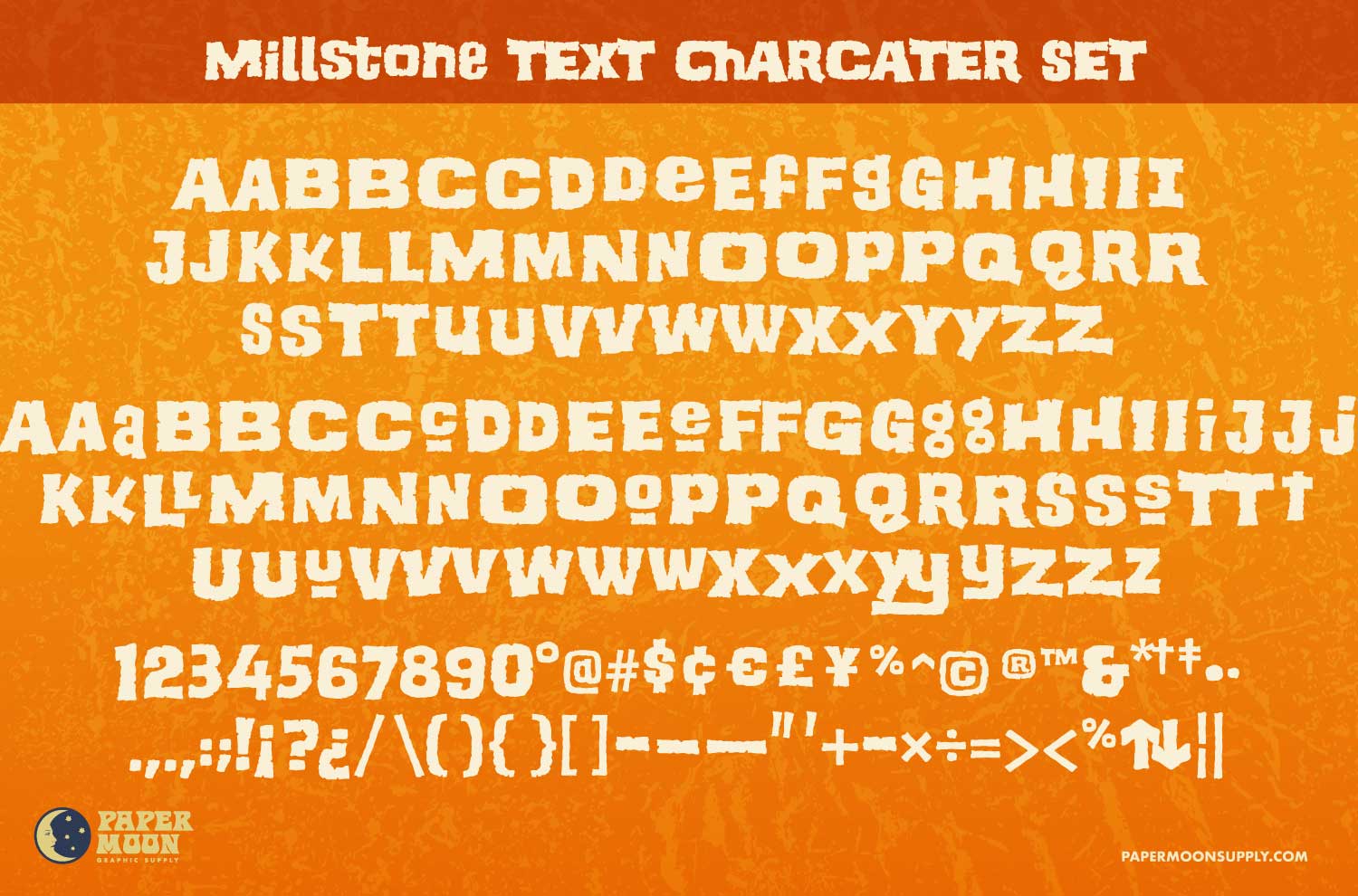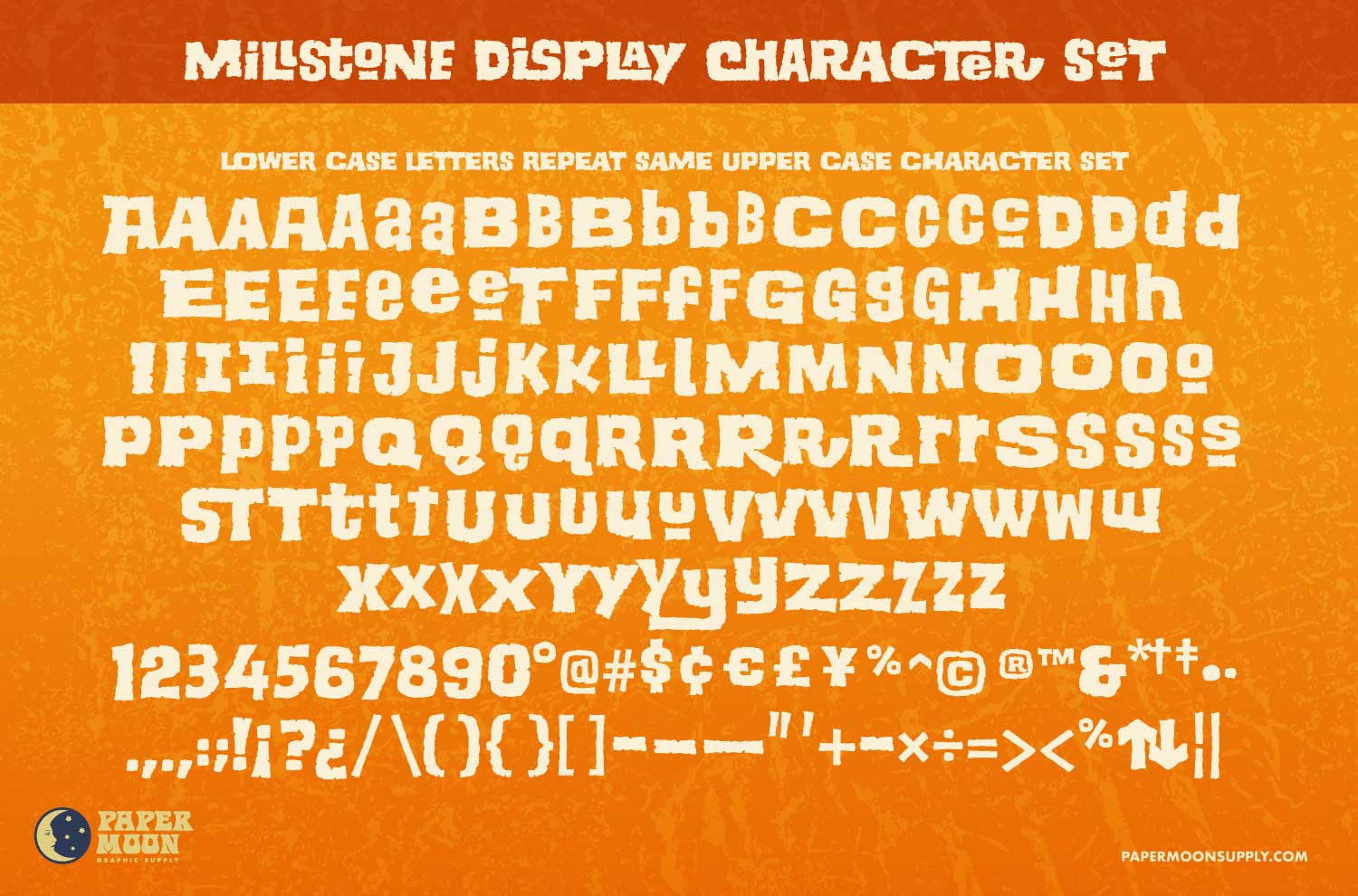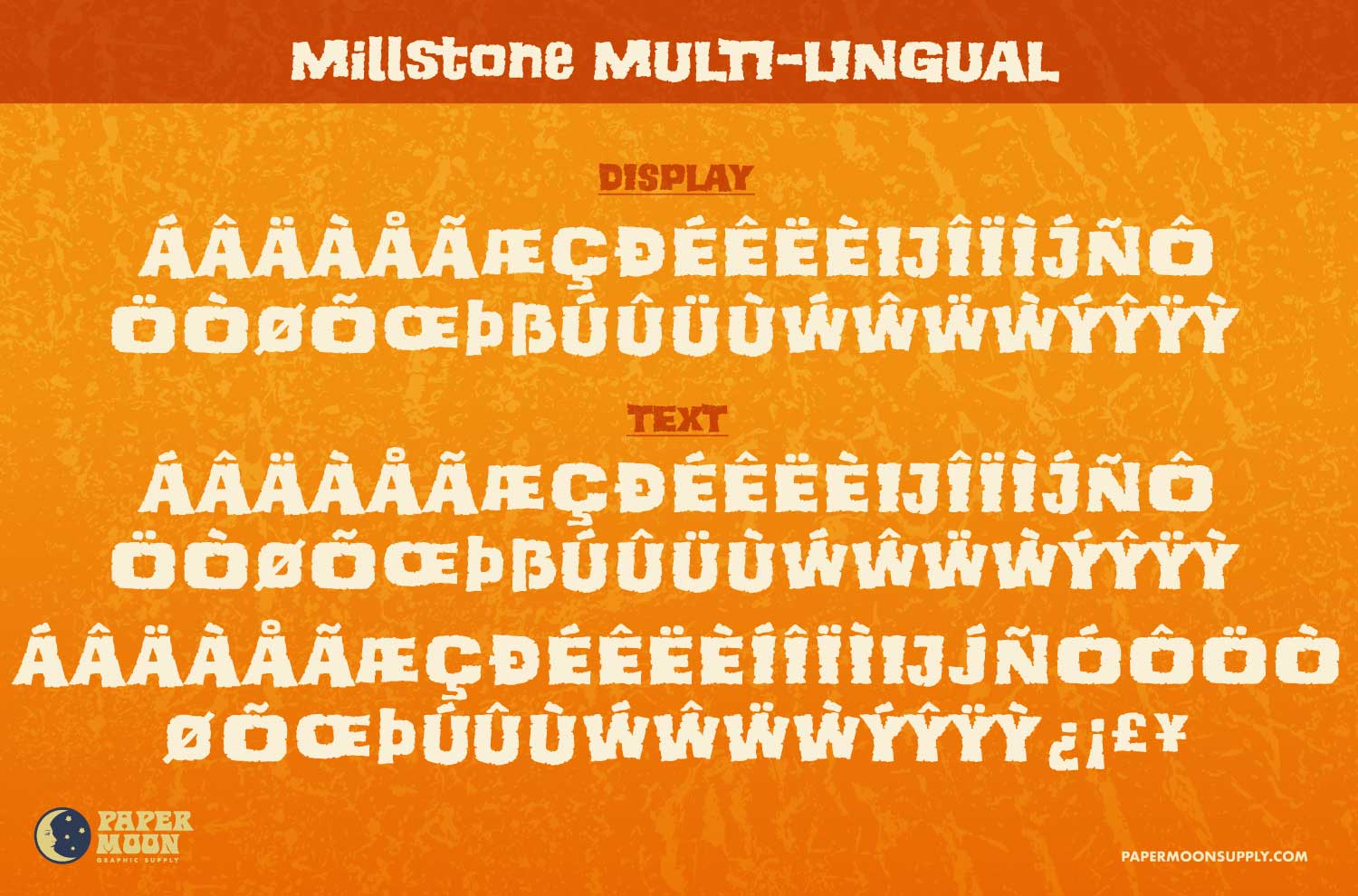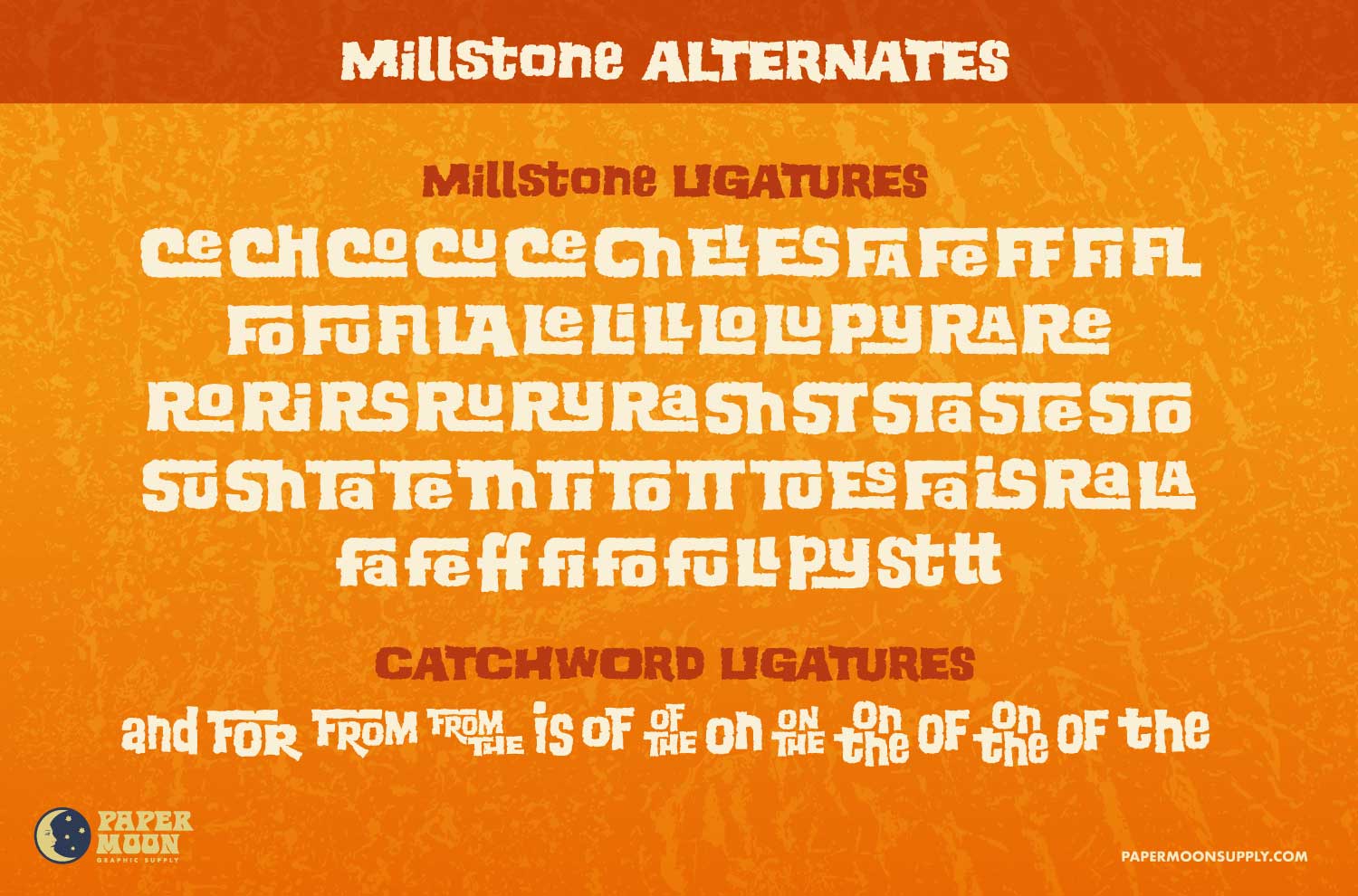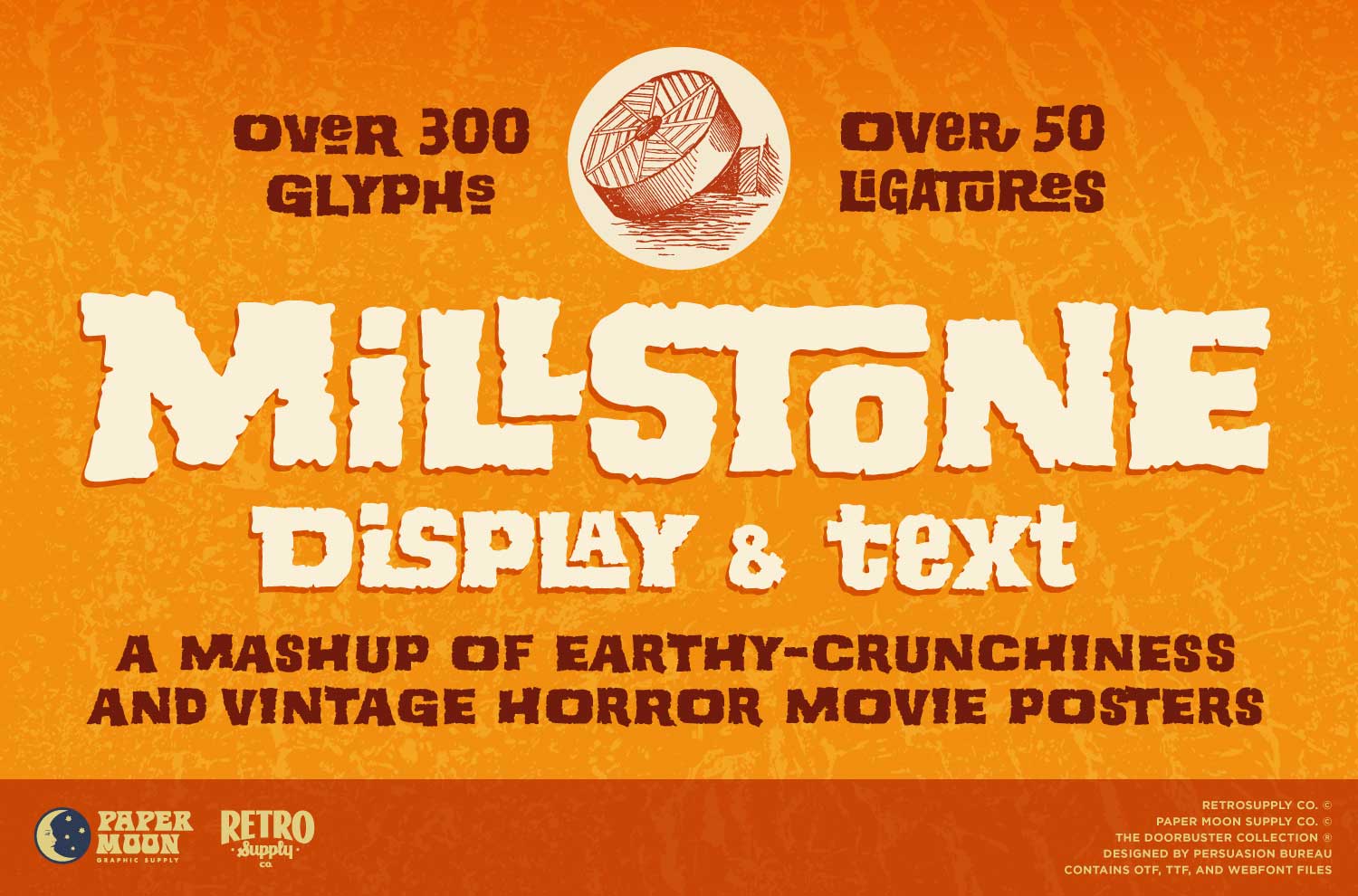
Bring On the Rustic Charm and Retro Horror with Millstone!
Step back in time with the Millstone Font Collection, a dynamic typeface duo that combines earthy textures with the bold nostalgia of vintage horror movie posters. Whether you’re crafting attention-grabbing headlines or immersive storytelling visuals, Millstone brings an organic, hand-carved charm to your designs. With over 300 glyphs, 50+ ligatures, and multilingual support, this font duo is perfect for designers who crave authenticity and retro flair.
- Versatile Duo: Includes both Millstone Display and Millstone Text fonts to seamlessly switch between bold statements and readable text.
- Extensive Glyph Set: Over 300 glyphs and more than 50 ligatures provide endless customization options, from intricate ligatures to playful catchwords.
- Unique Catchwords & Alternates: Spruce up your designs with built-in catchword ligatures like “and,” “from,” and “the,” along with alternate characters for added variation.
- Multilingual Support: Covers an expansive range of accented characters, making it suitable for global audiences.
- Authentic Retro Feel: Inspired by earthy, rustic aesthetics and classic horror movies, Millstone infuses vintage texture into every character.
Millstone is not just a font; it’s a storytelling tool. Whether you’re designing posters, packaging, or digital artwork, its vintage yet versatile personality makes it ideal for projects that need a touch of rugged charm.